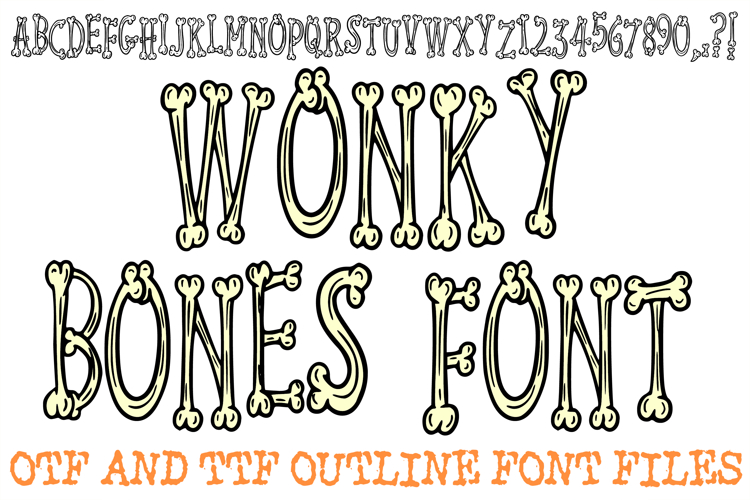
Wonky Bones Lettering Font Halloween Skeleton ABC OTF Type
The Wonky Bones Font is a charming, hand-drawn display typeface that brings a "doodle" aesthetic to the skeletal form. Unlike traditional, rigid bone lettering, this set features elongated, thin, and intentionally "wonky" bone structures that lean, curve, and bounce with a rhythmic, playful energy.
As a designer, you’ll appreciate the artisanal feel of the variable line weights and the "perfectly imperfect" anatomy of each character. It’s the ultimate choice for creepy-cute Halloween branding, whimsical children’s apparel, and boutique holiday decor. Whether you are crafting sublimation T-shirts, Cricut vinyl decals, or spooky-sweet greeting cards, the Wonky Bones Font offers a lighter, more illustrative "rattle" that stands out from the crowd.